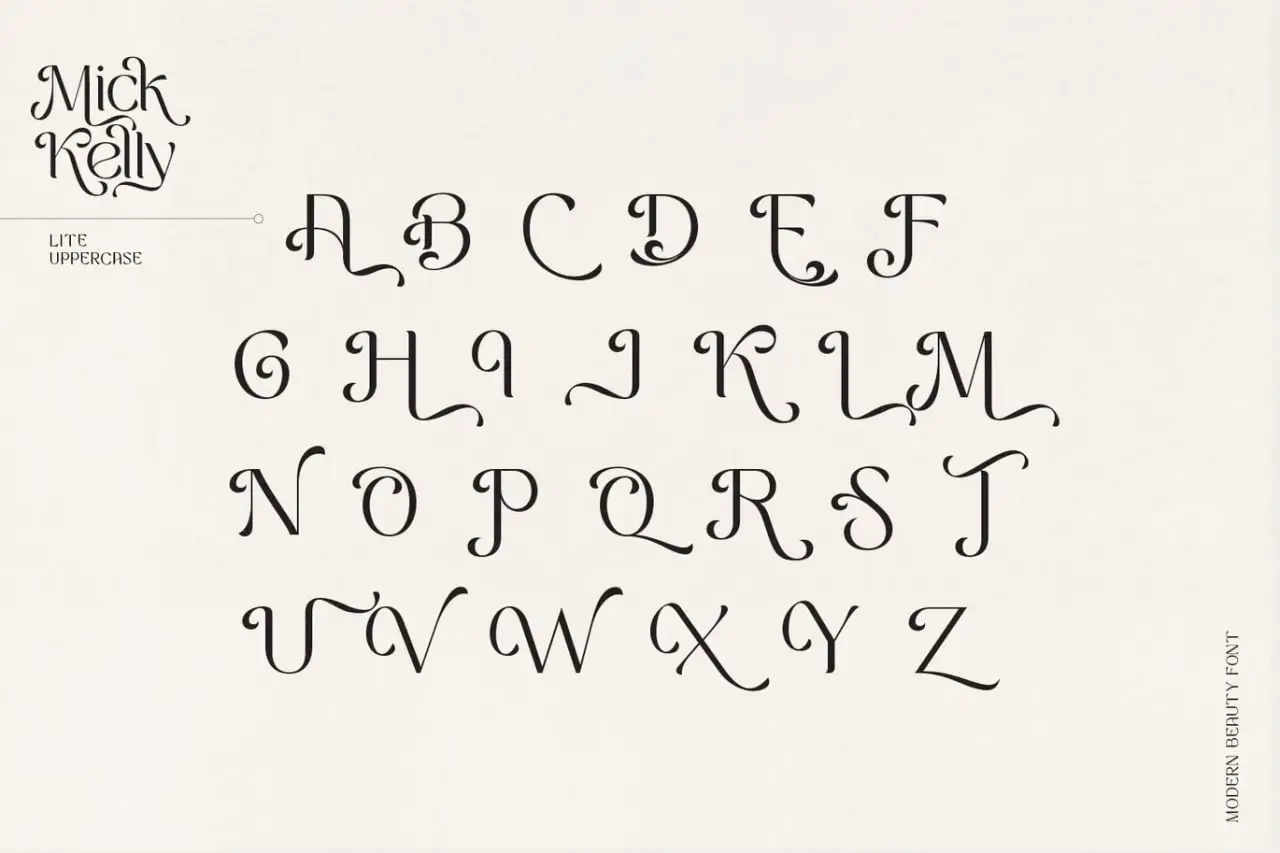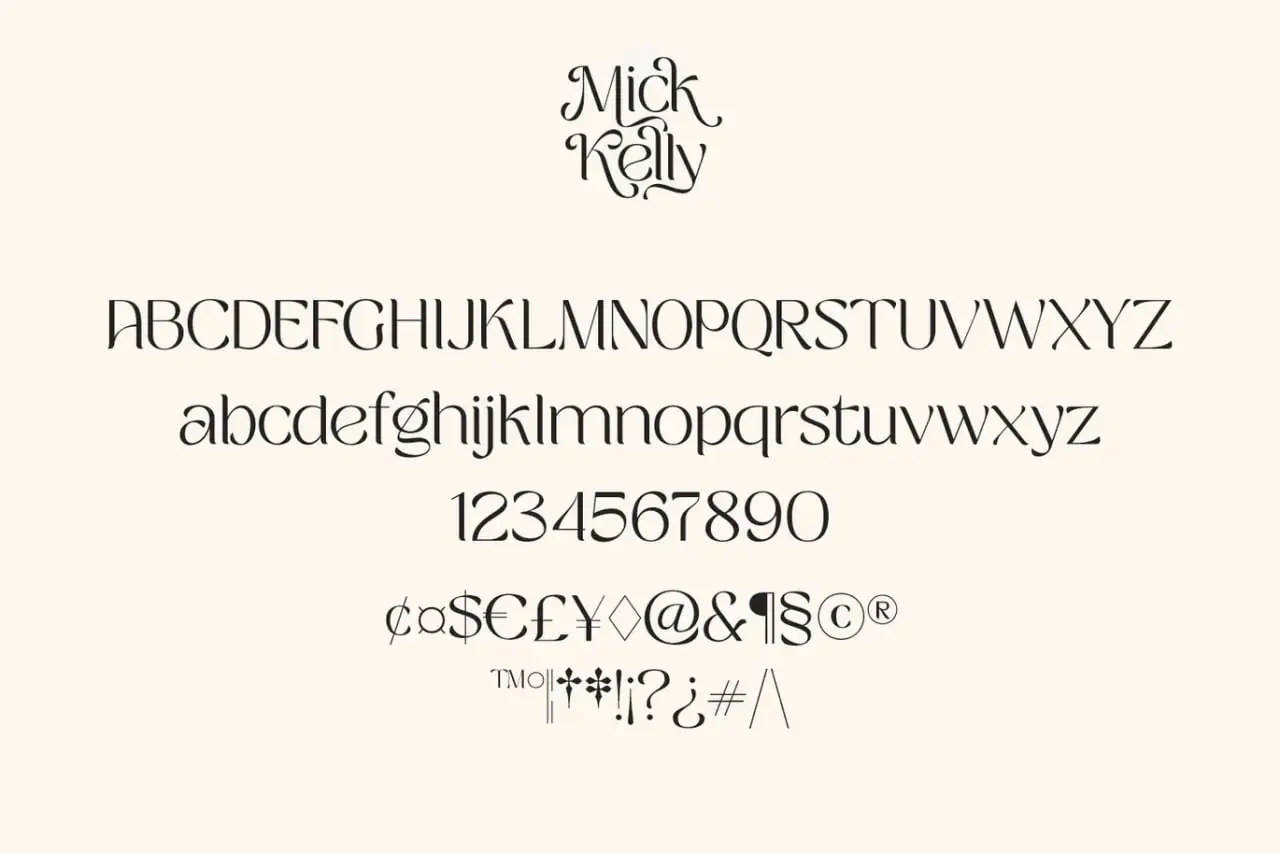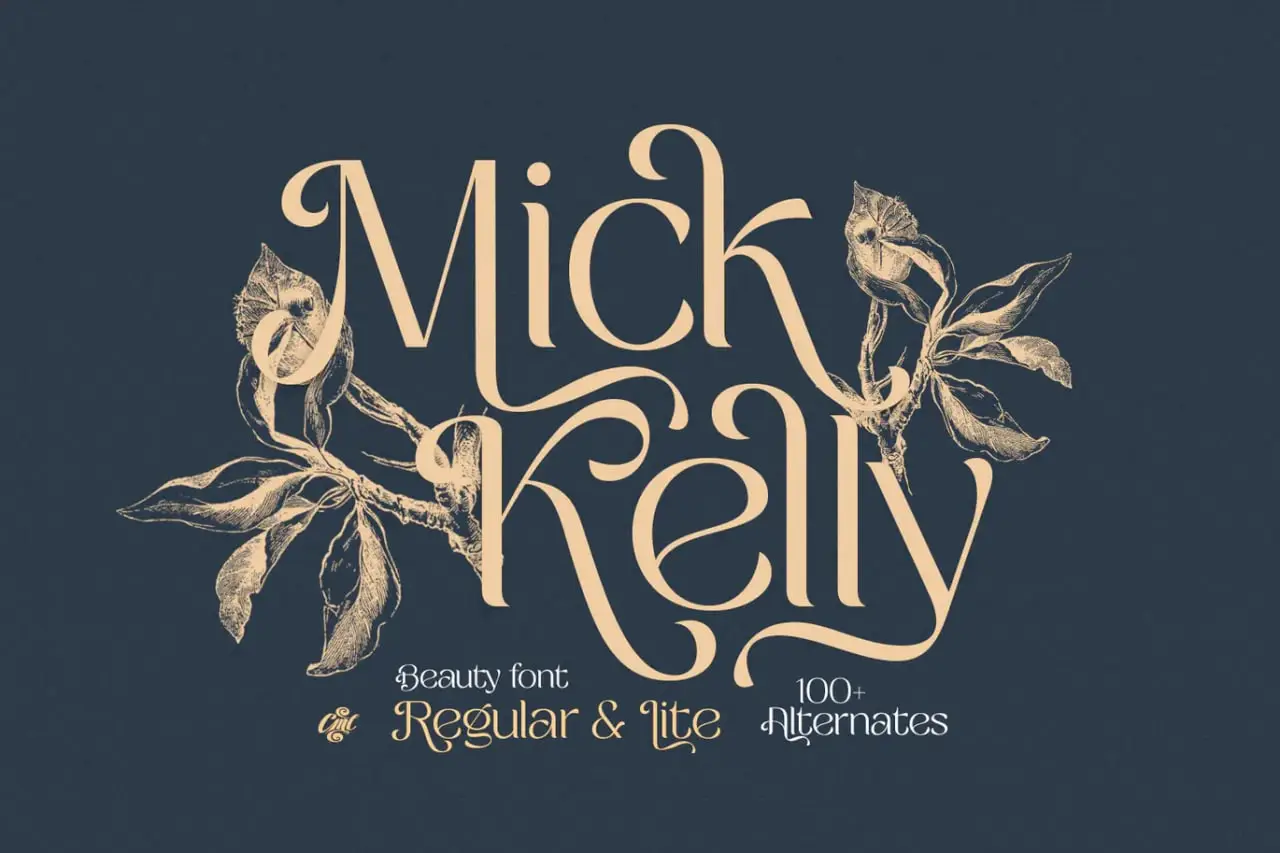
Mick Kelly-Beauty Modern Font
The Mick Kelly-Beauty Modern Font is a stylish typeface designed to bring a contemporary flair to your projects. With its elegant curves and clean lines, this font is perfect for a variety of applications, from branding to digital media.
• Modern and elegant design
• Great for web design and print projects
• Use in user interfaces for a modern touch